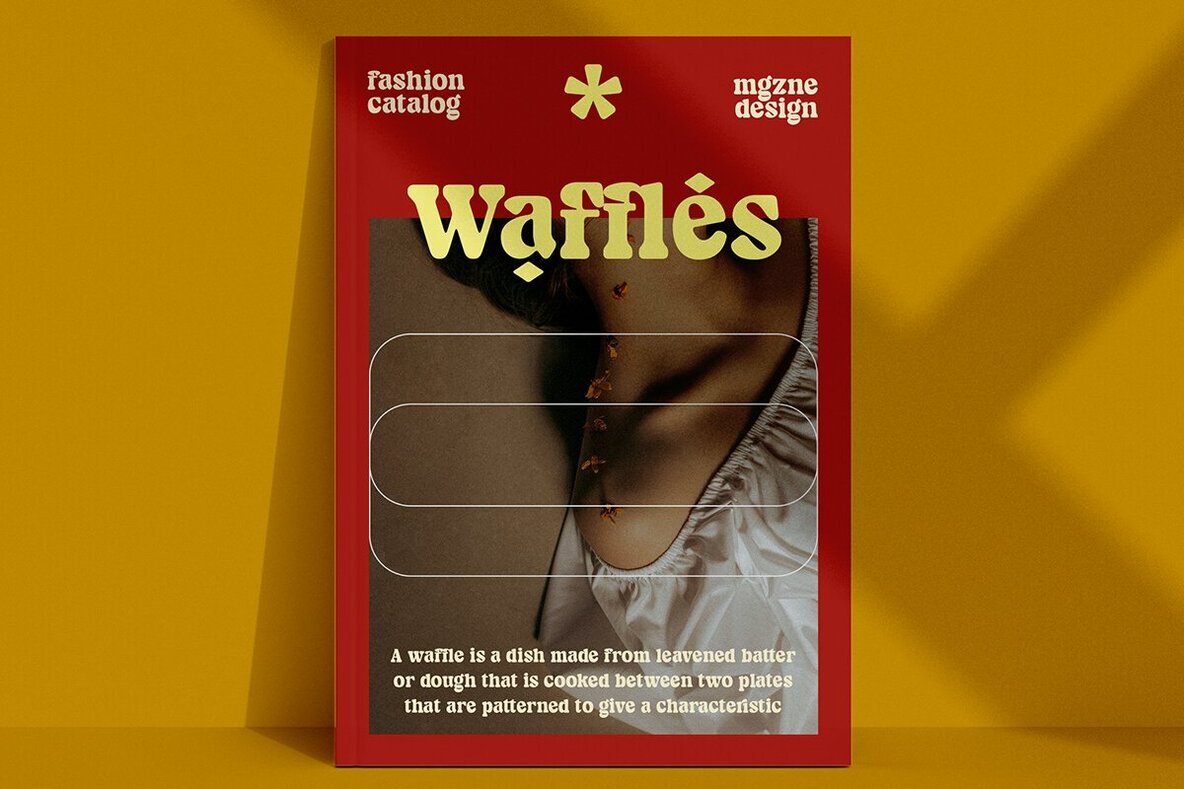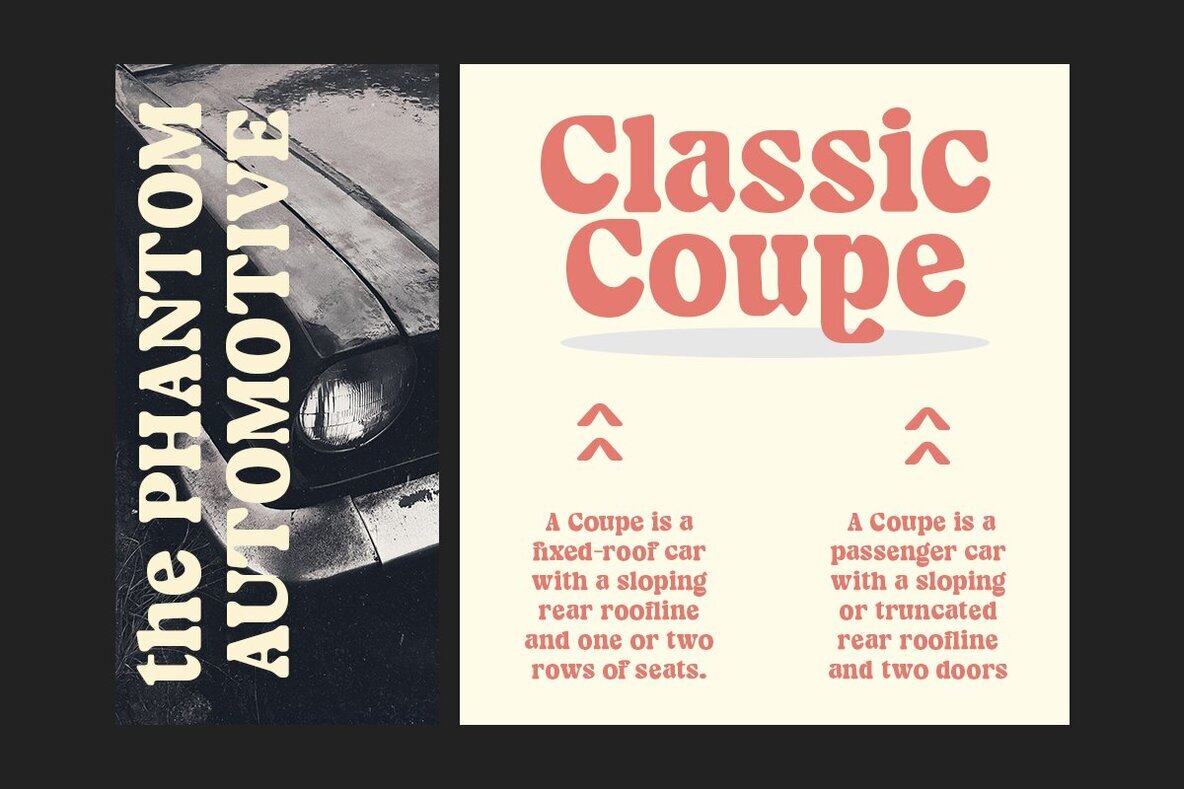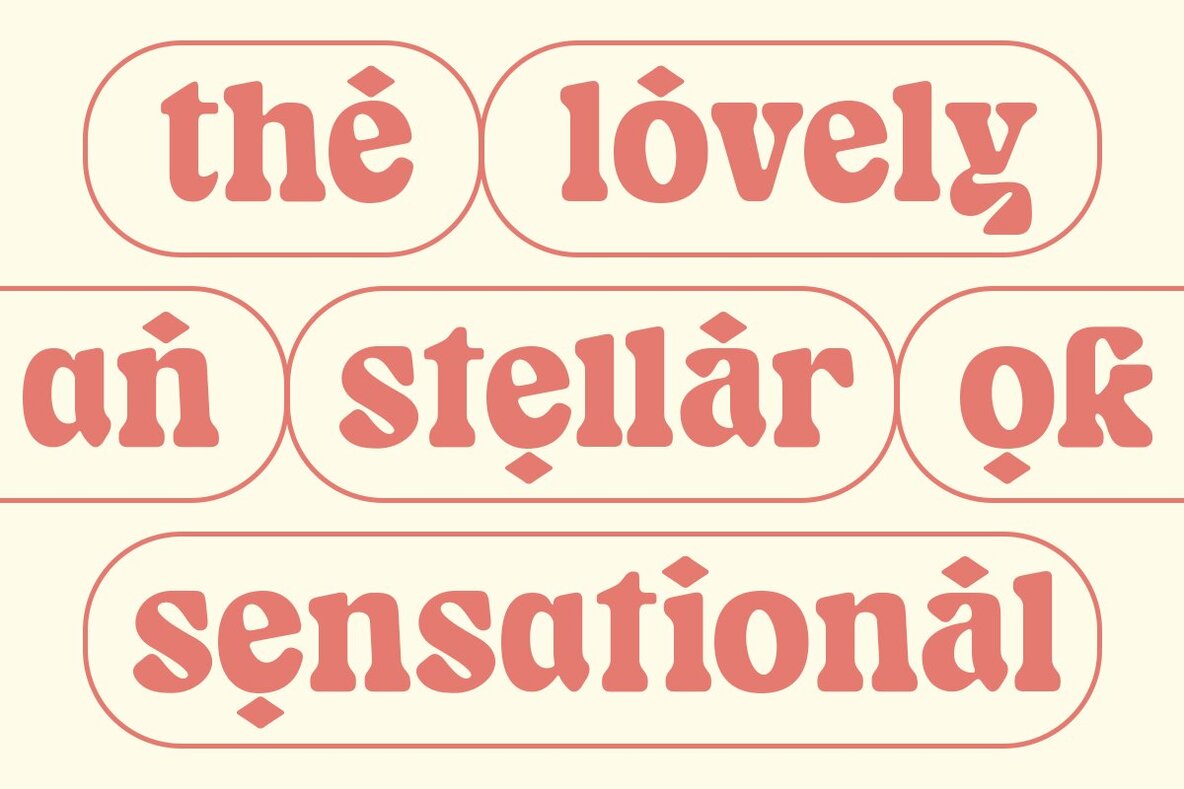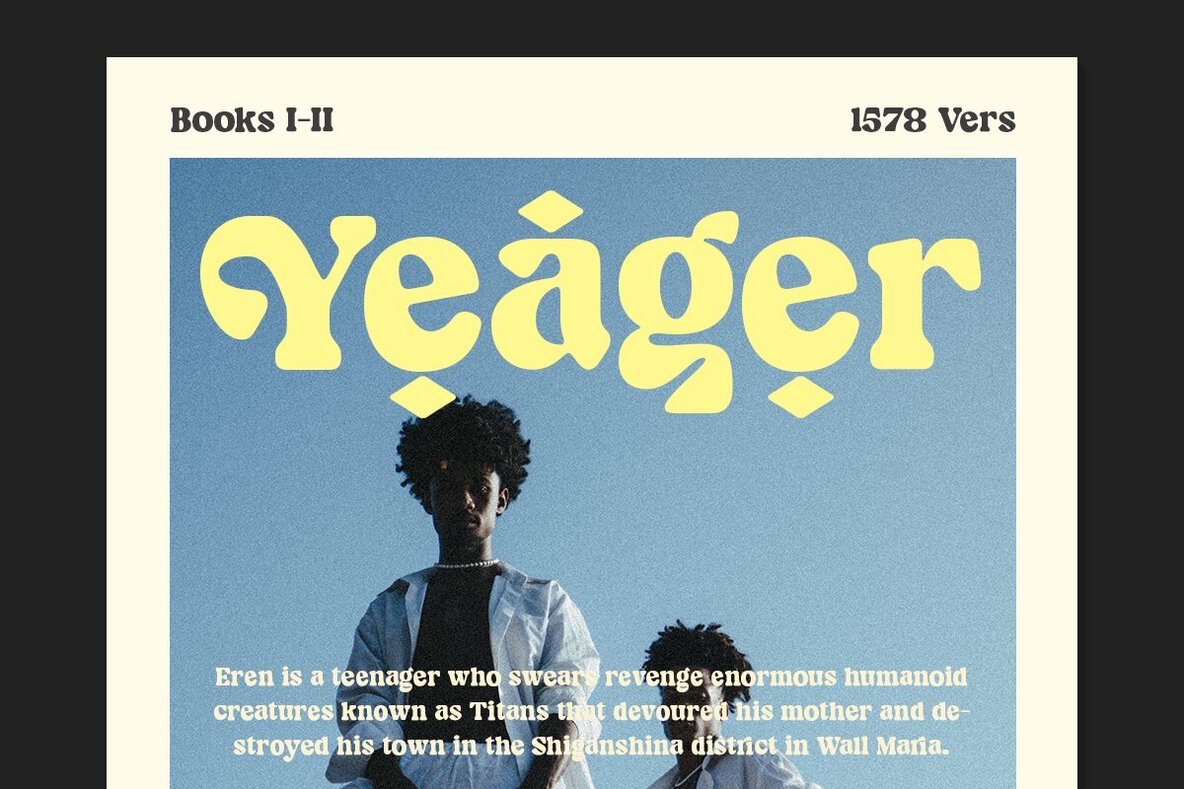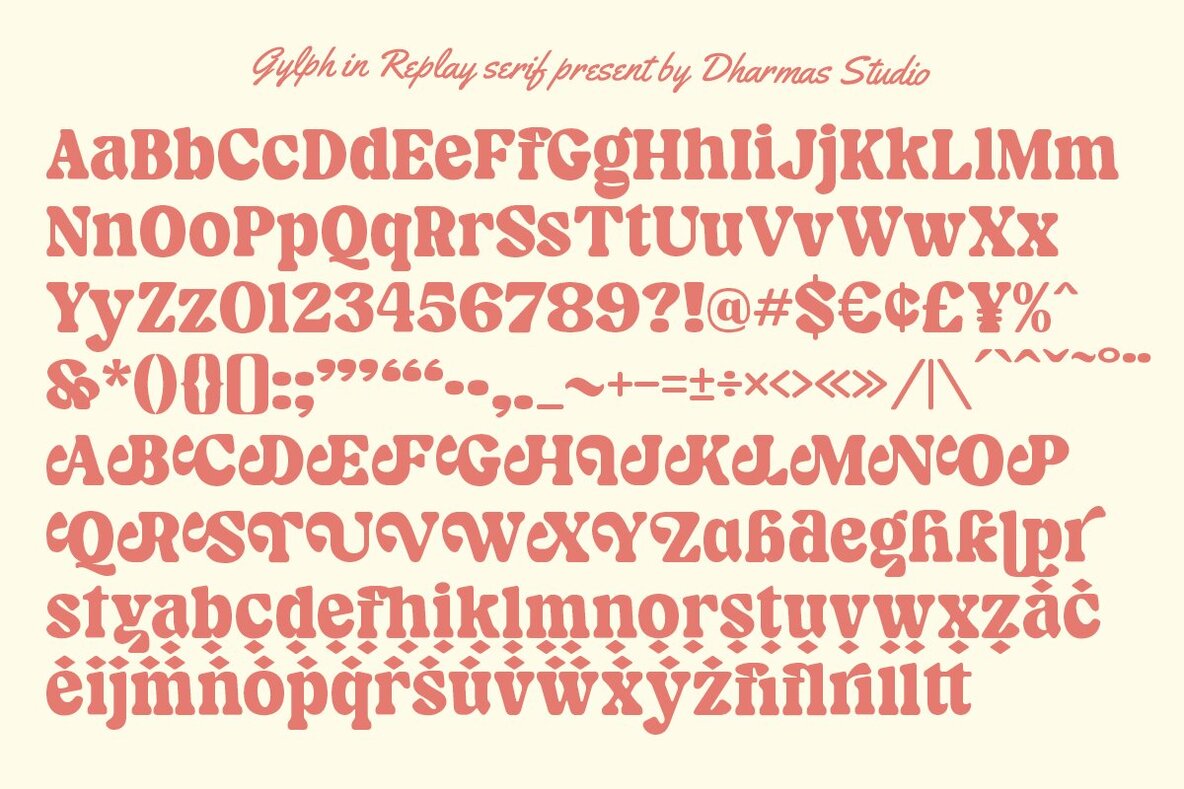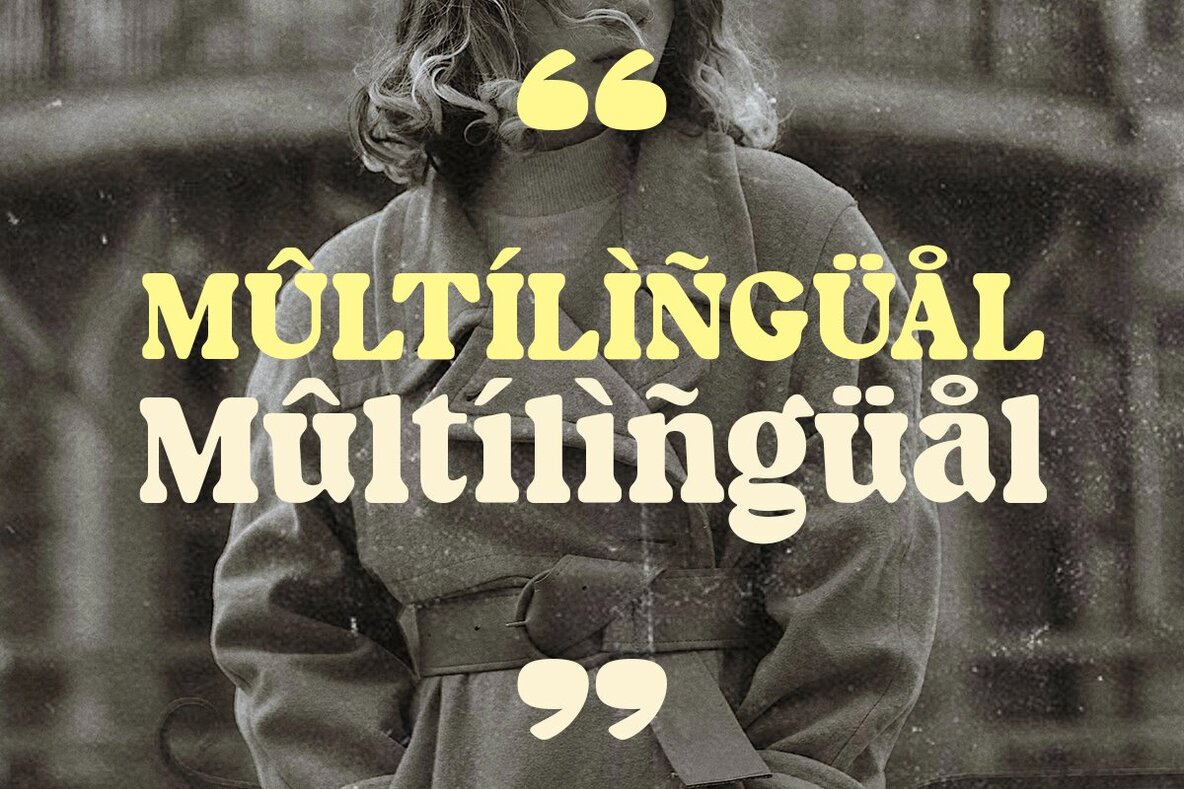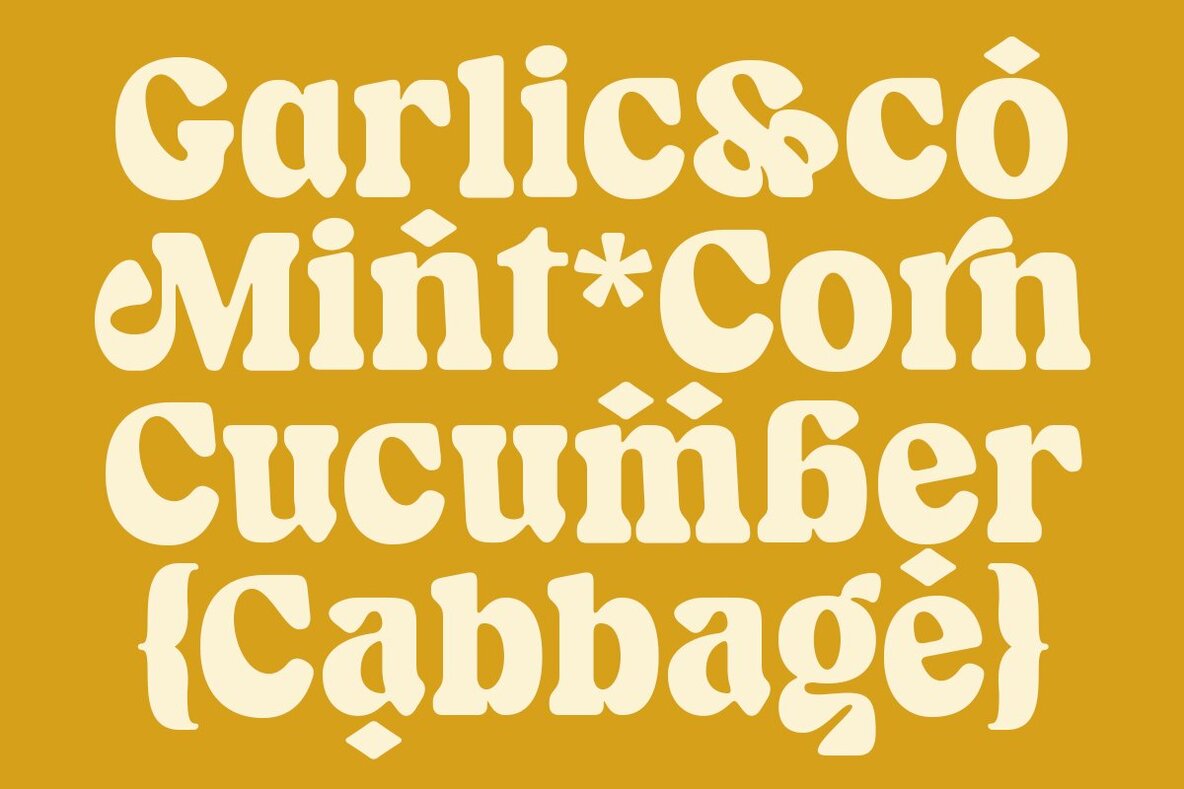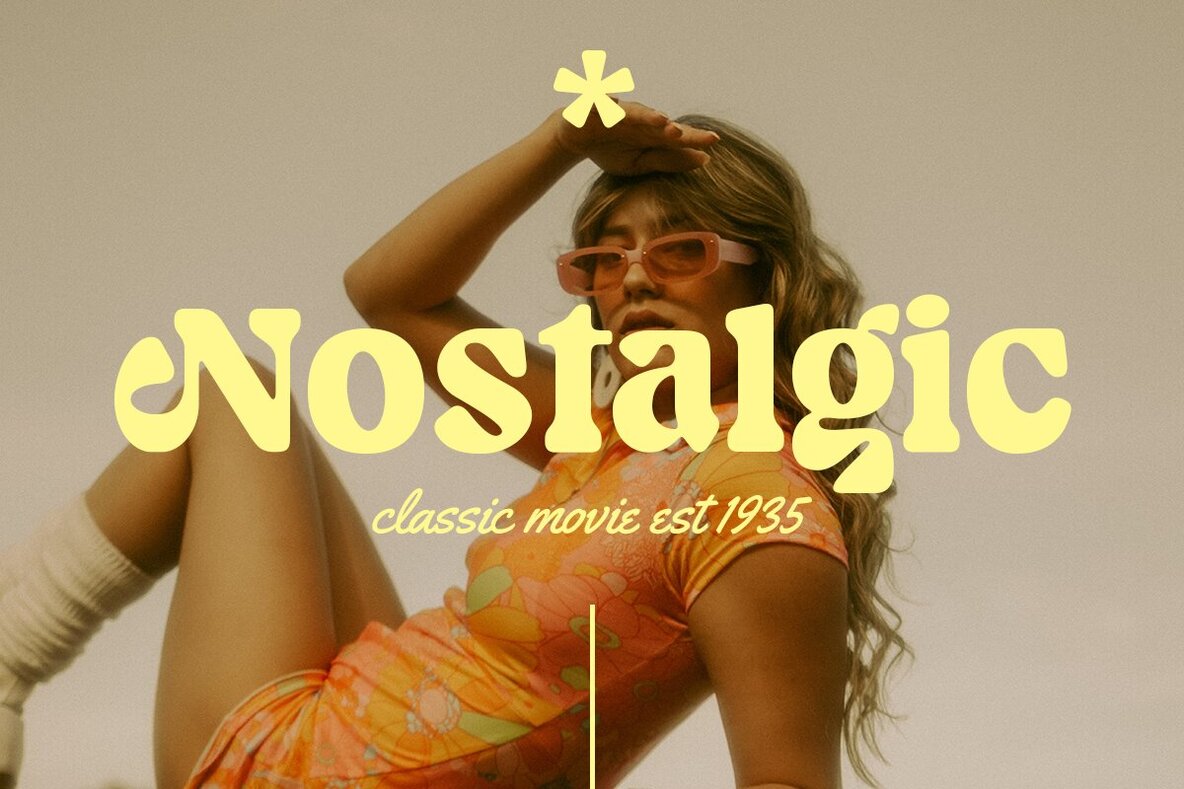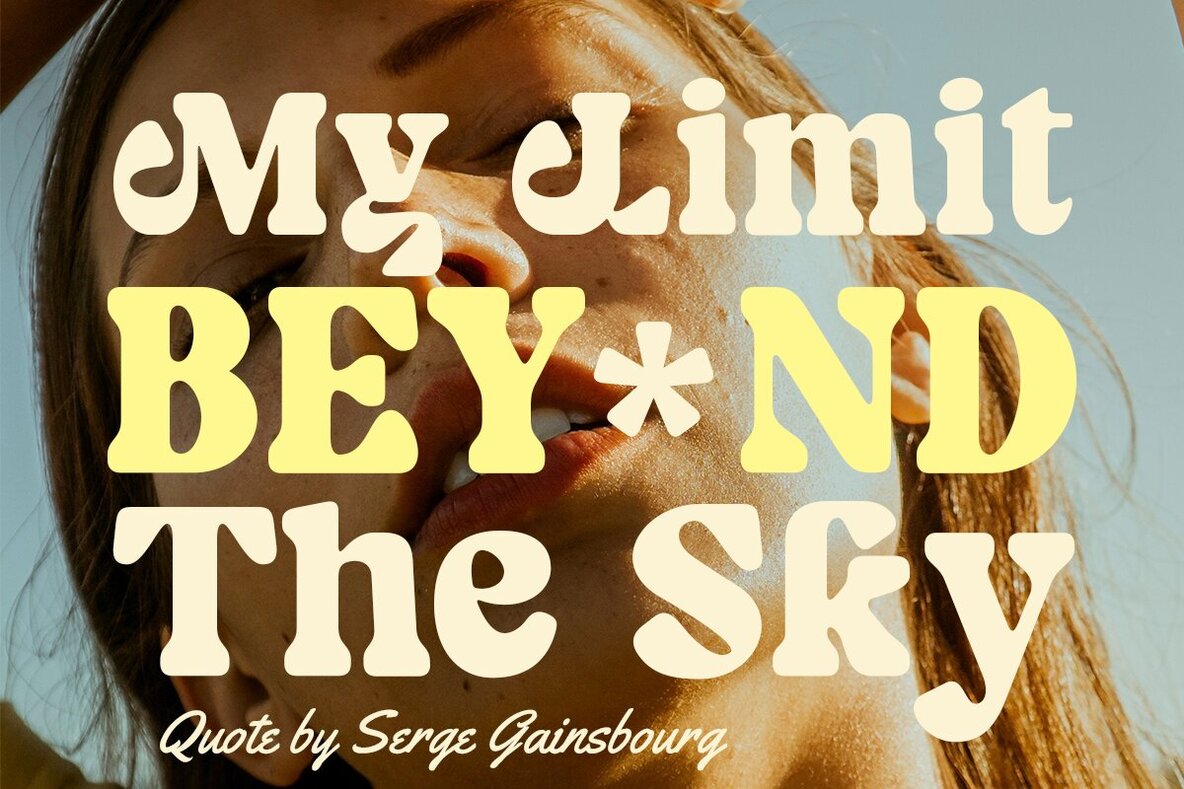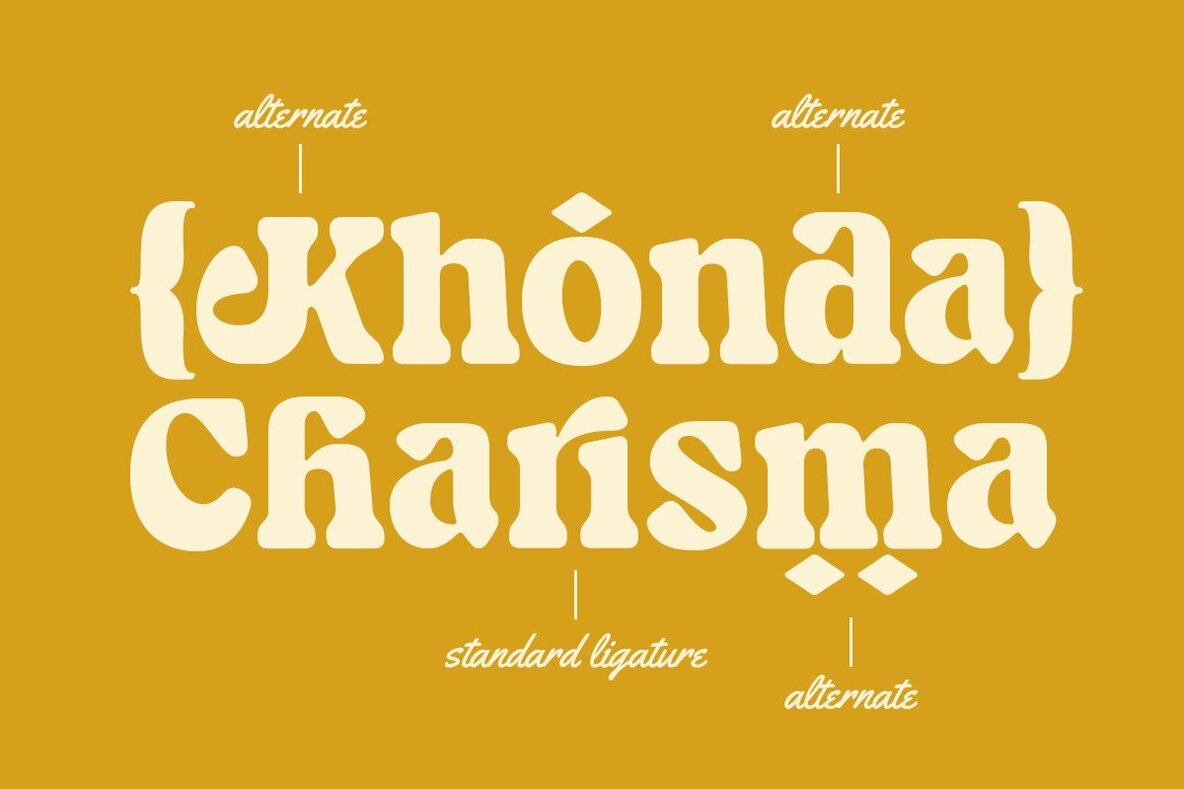
Replay Font
Replay
Drawing inspiration from the iconic Cooper Black, Replay presents a soft, rounded old-style serif that echoes the elegance of the sixties. Its clean letterforms offer versatility, making it suitable for both display and reading situations. Whether crafting a logo or composing an inviting blog, Replay holds its own as a sophisticated typographic choice.Replay: Sixties-Inspired Serif with a Modern Edge